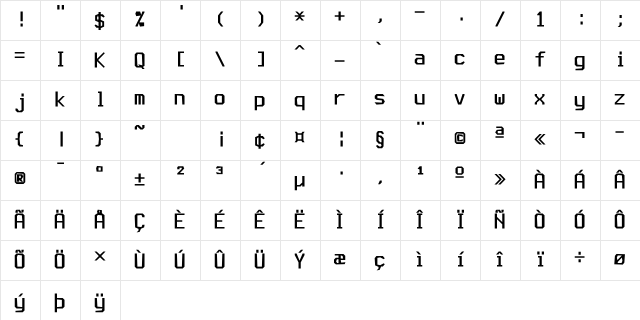
TerminessTTF NF Bold Free Font
TerminessTTF NF Bold
Complete TerminessTTF NF Bold glyph index. Displaying only characters natively supported by TerminessTTF NF Bold font.
Design Context for TerminessTTF NF
TerminessTTF NF is a composed and adaptable typeface that performs quietly and consistently across a wide range of design contexts. Its bold stroke weight gives it real presence on the page.